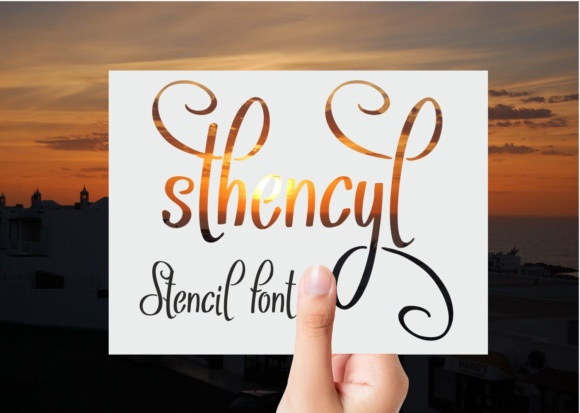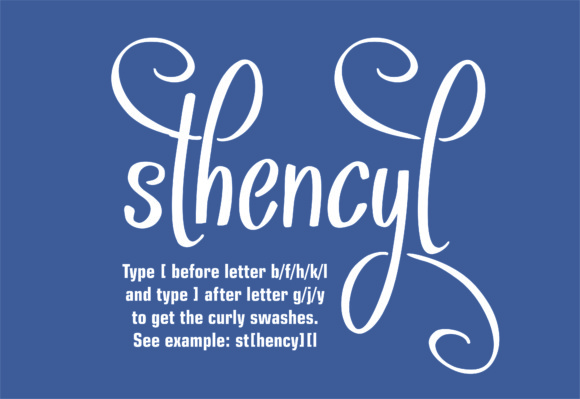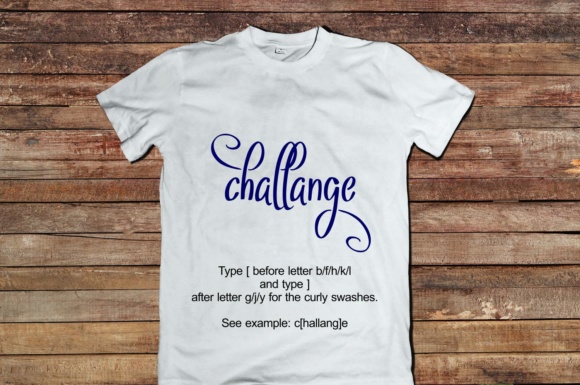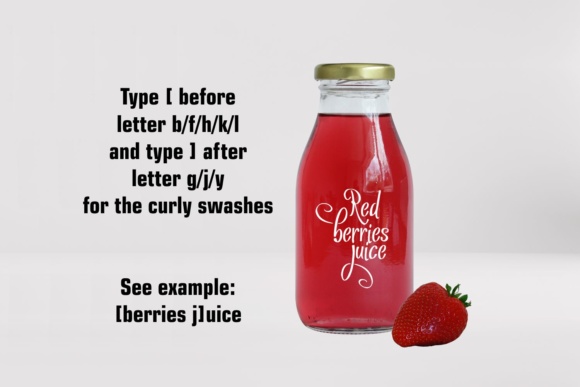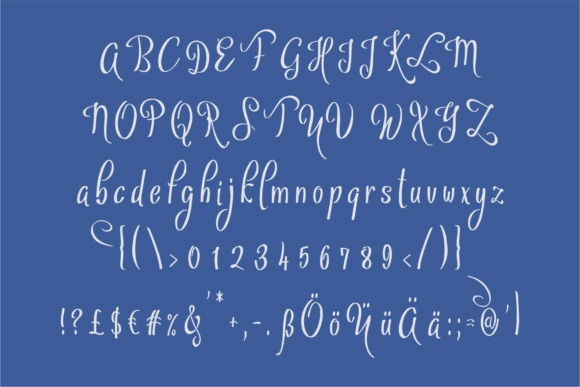
Sthencyl Font
About Sthencyl Font
This handwritten calligraphy font is crafted without closed loops on the characters, so you can create a truly unique and original looking design.
Type [ before letter b/f/h/k/l) and type ] after letter g/j/y for the curly swashes.
See example: st[hency][l